11 Best Cute Cursive Fonts for Kids’ Crafts in 2026
This collection moves from rounded, upright joins and bouncy mixed-letter forms to bold brush marks, slanted flourishes, and high-contrast display scripts. These Cute Cursive Fonts suit invitations, logos, packaging, social graphics, craft projects, and short headings, with readability depending heavily on size and stroke density.
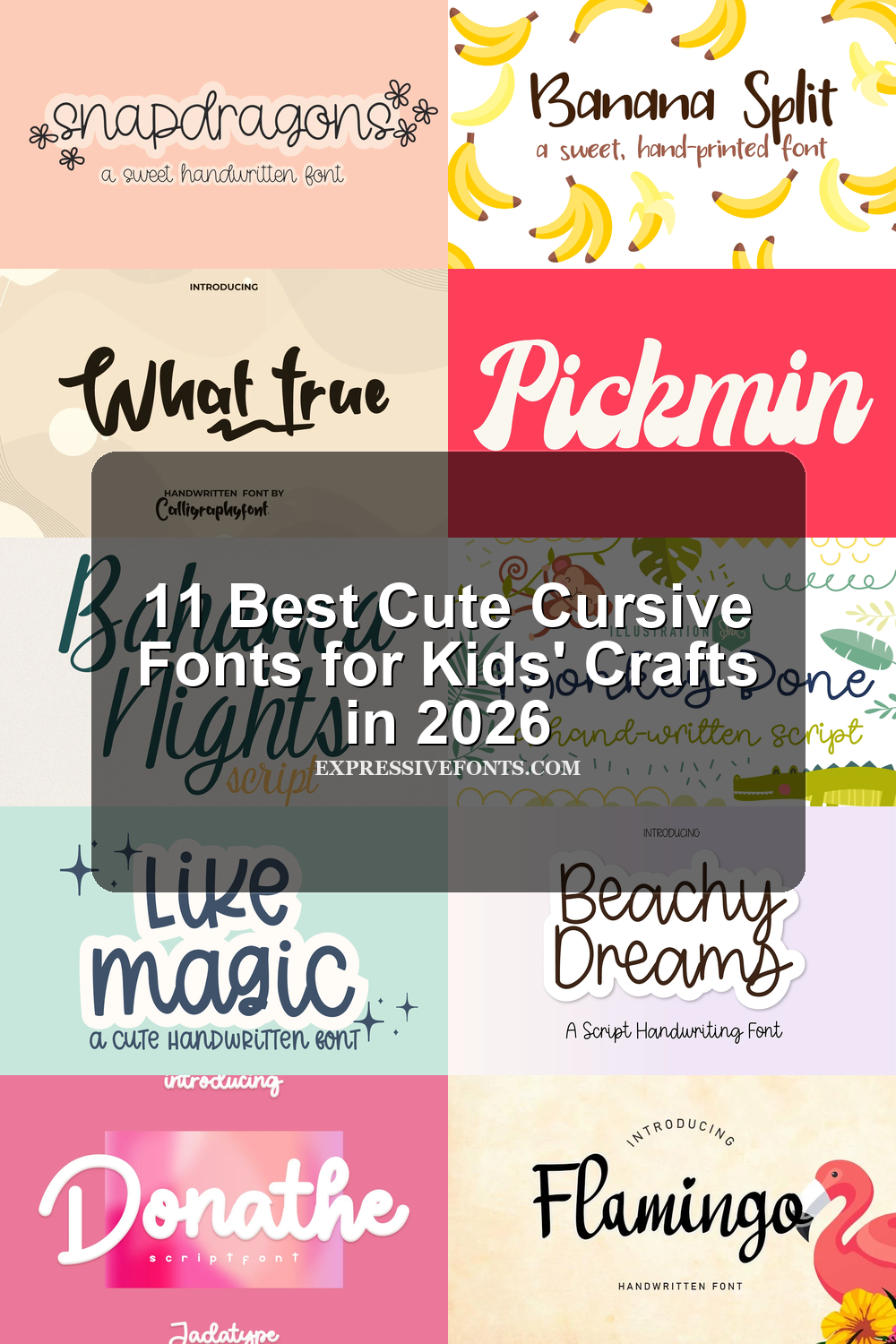
Cute Cursive Fonts: Connected Flow
Cute Cursive Fonts: Connected Flow brings together continuous joins, stable or lively baselines, and stronger directional movement. These styles feel more traditionally cursive than the looser mixed-join group.
Snapdragons Font
Snapdragons Font uses upright connected lowercase letters, a soft monolinear rhythm, and rounded terminals. Its stable baseline and smooth joins keep Cute Cursive Fonts readable for invitations, greeting cards, and crafts, although dense connections can blur at very small sizes.
Flamingo Font
Flamingo Font works well for social media graphics and short headlines, where its right-leaning connected letters, variable stroke thickness, and heart-shaped i dot can be seen clearly. Moderate spacing supports display readability, but its decorative details make body copy impractical.
Pickmin Font
Pickmin Font builds its bold connected cursive around consistent rhythmic flow, soft rounded terminals, and an upright structure. Among Cute Cursive Fonts, it is a strong choice for readable logos and packaging at display sizes, though bold joins crowd small text.
Bahama Nights Font
Bahama Nights Font is suited to wedding designs and packaging that need a pronounced vertical sweep. High-contrast connected strokes, a rightward slant, decorative ascenders and descenders, and an irregular baseline create movement, but Cute Cursive Fonts with this much detail need generous sizing.
Donathe Font
Donathe Font uses stable upright connections, rounded terminals, and an even monolinear stroke for approachable flow. Its paint-brushed character adds informality without high contrast, making it dependable for branding headers, logos, social graphics, and large display text.
Lettifa Cute Font
Lettifa Cute Font brings connected dip-pen-inspired lettering, pronounced flourishes, and high stroke contrast to display compositions. Its stable baseline helps, but swashes and variable strokes limit small-scale readability. Use it where Cute Cursive Fonts need a decorative finish for invitations, fashion, or beauty branding.
Playful Mixed-Join Handwriting
Playful Mixed-Join Handwriting combines separate letters, partial joins, rounded terminals, and uneven sizing. It generally reads more clearly and casually than connected scripts, especially in friendly display work.
What True Font
What True Font pairs irregular thick-and-thin brush strokes with a decorative underline swash. Its disconnected letters feel expressive rather than conventionally cursive, with moderate legibility best reserved for logos, labels, menus, and large display text.
Monkey Bone Font
Monkey Bone Font creates a loose, cheerful effect through rounded monolinear forms, simple loops, an irregular baseline, and disconnected letters. It is clear in children’s designs and large headings, where the spacing and bouncy construction have room to show.
Like Magic Font
Like Magic Font has a bouncy uneven baseline and informal rounded shapes that translate especially well to Cricut projects. Its clean monolinear forms suit invitations and decorative headers, while dense small text loses clarity.
PN Banana Split Font
PN Banana Split Font uses disconnected monolinear letters, rounded terminals, and a visibly bouncy baseline. These Cute Cursive Fonts alternatives read clearly in headlines and short phrases, though the separate-letter construction makes this more casual print lettering than a joined script.
Beachy Dreams Font
Beachy Dreams Font mixes partially connected letters with monolinear strokes, inconsistent sizing, and rounded terminals. That relaxed rhythm keeps display text approachable for social posts, branding, and invitations, while the irregular structure can reduce clarity at very small sizes.
How to Choose the Right Font
Choose connected styles when continuous movement, loops, and a stronger cursive identity matter most; compare upright monolinear options for steadier readability and slanted, high-contrast designs for extra drama. For Cute Cursive Fonts used below headline size, favor open spacing, restrained joins, and fewer flourishes, then test the actual phrase before committing.